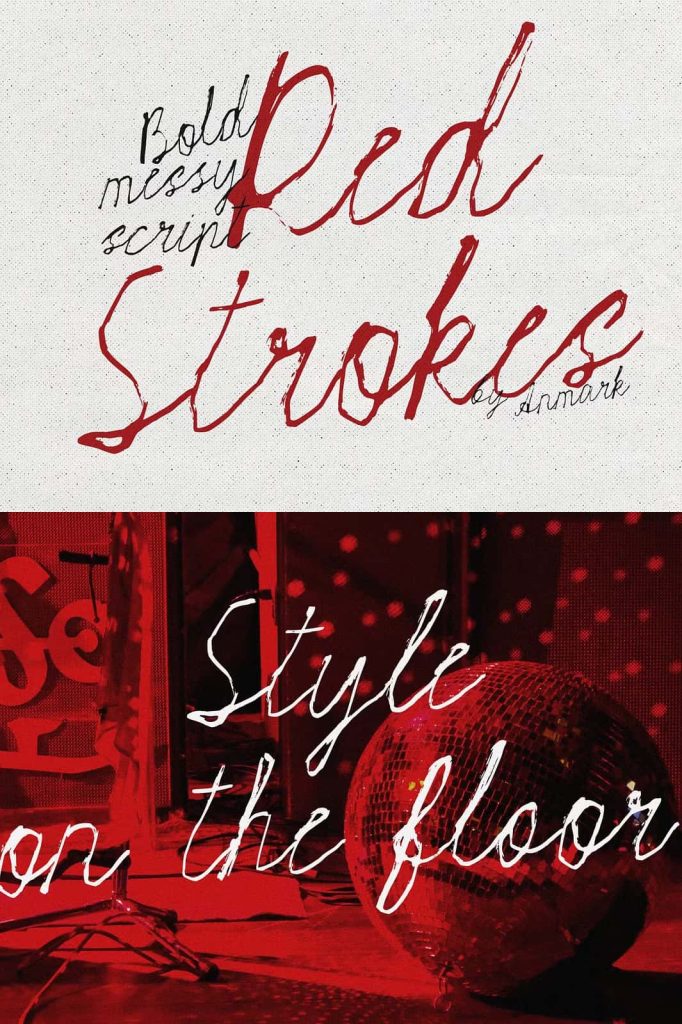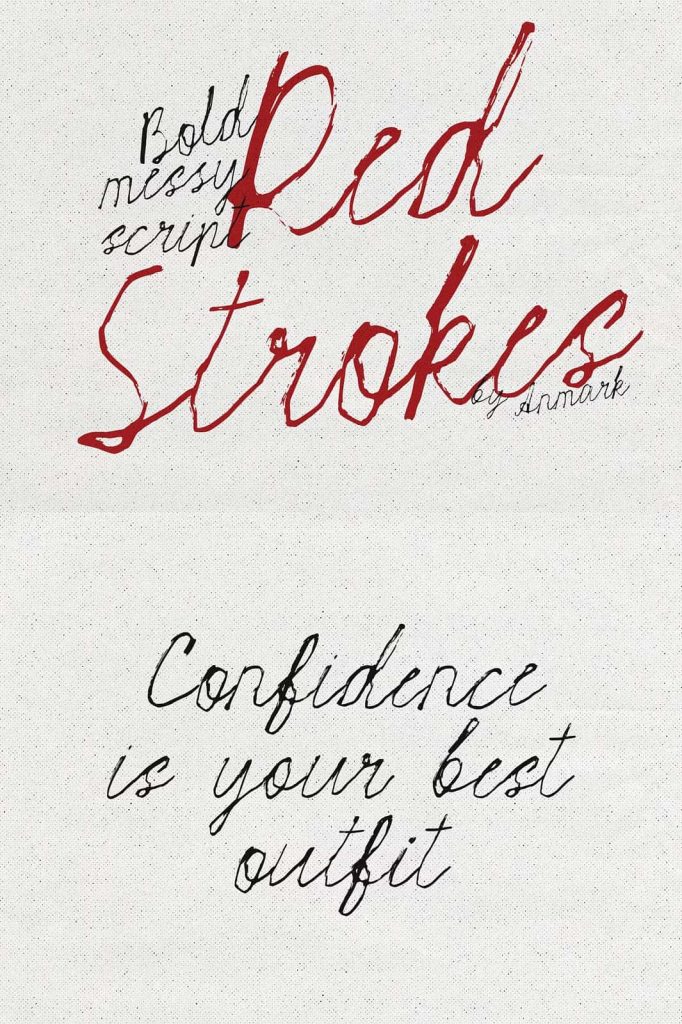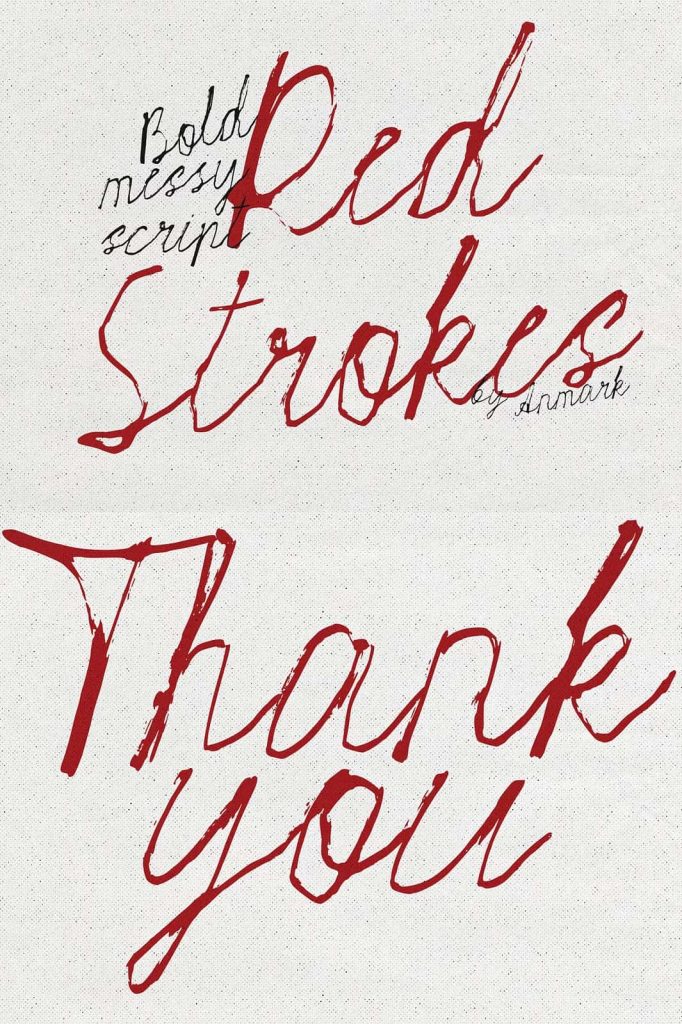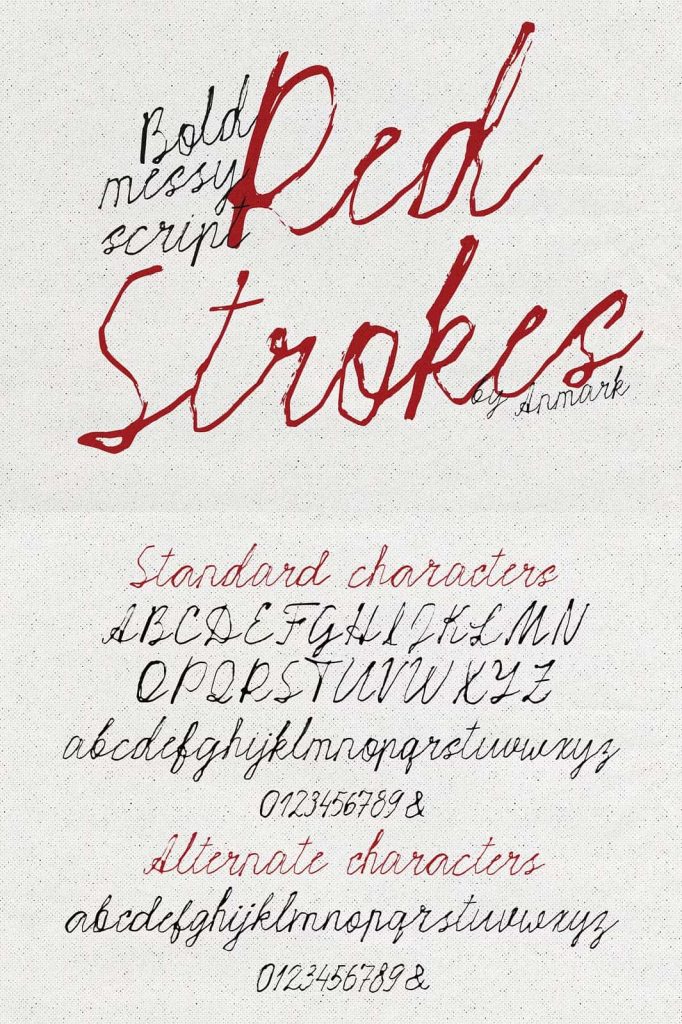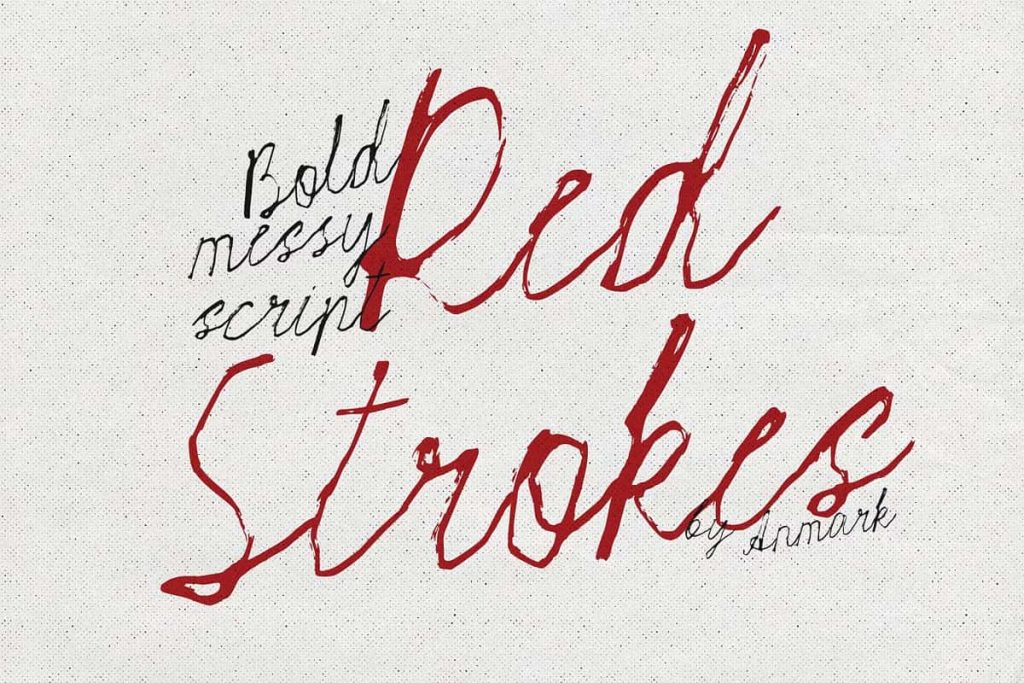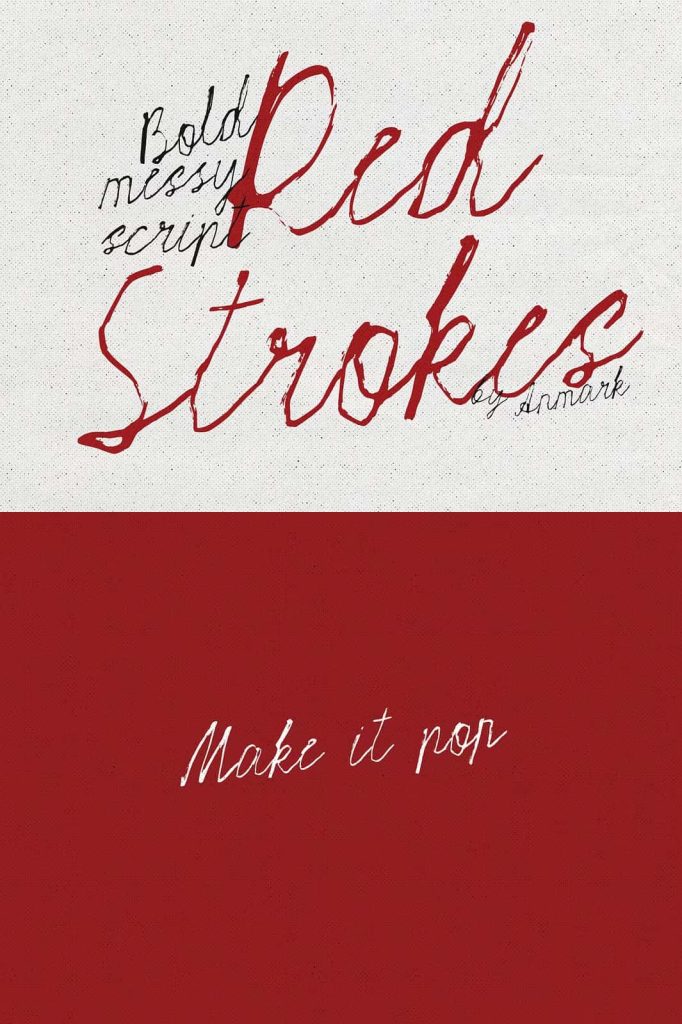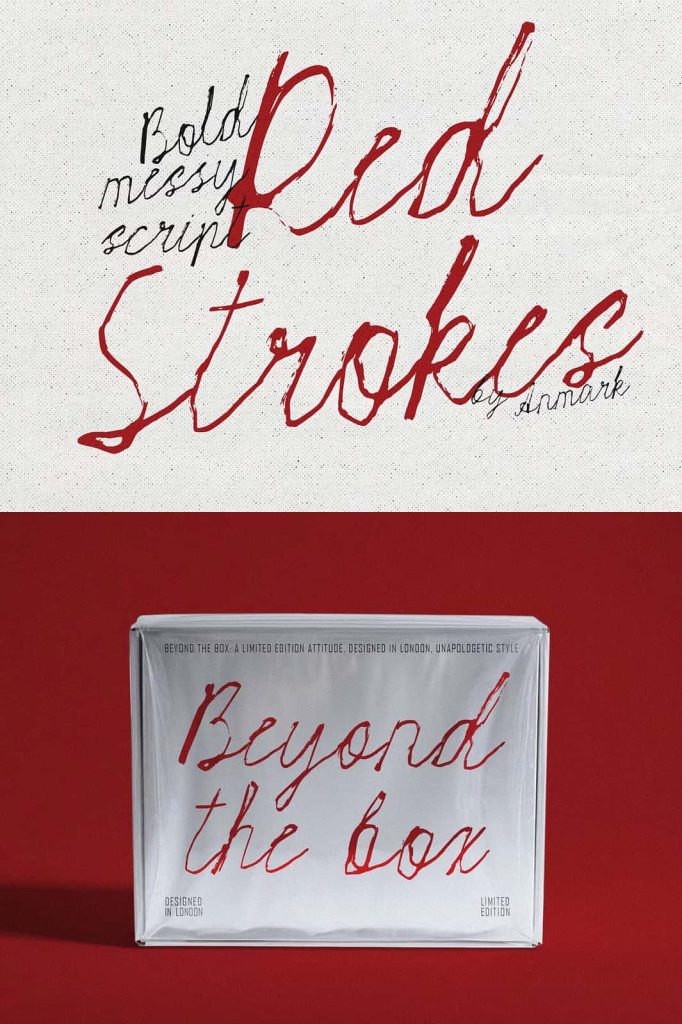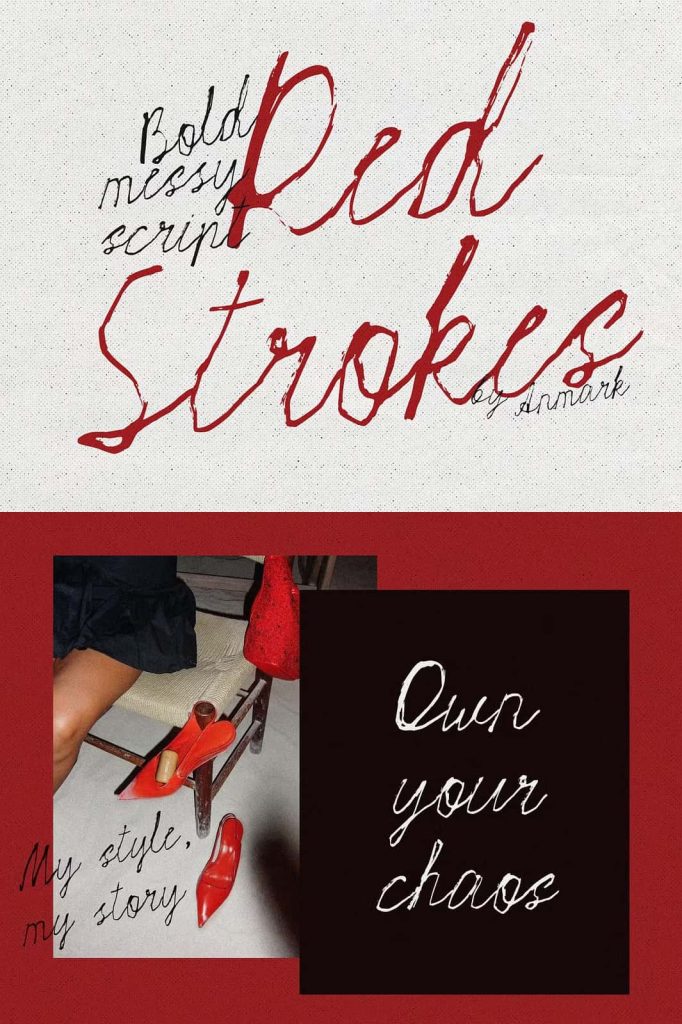
Red Strokes Script Font – Bold Textured Handwritten Typeface for Creative Designs
Red Strokes is a bold, textured script font that captures the beauty of natural handwriting with an expressive and artistic personality. Designed with rough brush-inspired strokes and an intentionally imperfect appearance, this typeface delivers a handcrafted aesthetic that immediately grabs attention. Every letter feels energetic, emotional, and full of movement, allowing your typography to communicate far more than simple words.
Unlike clean script fonts that focus on perfection, Red Strokes embraces authenticity. The textured edges, dynamic curves, and spontaneous flow create a realistic handwritten effect that gives every project a personal and distinctive identity. This combination of bold strokes and natural imperfections makes the font especially suitable for designers who want to create memorable visuals with confidence and originality.
Whether you are designing a fashion campaign, premium branding package, magazine layout, social media content, or product packaging, Red Strokes provides the creative flexibility needed to make every design stand out. Its expressive style balances artistic freedom with excellent readability, ensuring your message remains clear while delivering maximum visual impact.
Expressive Handwritten Style with Artistic Character
Red Strokes celebrates the beauty of handcrafted lettering through expressive brush-like strokes and rich textures. Every character appears naturally written by hand, creating an authentic look that feels fresh, emotional, and full of personality. Instead of relying on perfectly smooth lines, this font introduces subtle irregularities that enhance its realism and charm.
The textured appearance creates depth and dimension, making headlines, logos, and featured text appear more dynamic. The flowing letterforms connect naturally, producing elegant movement across words while maintaining consistent readability. This combination allows designers to build eye-catching compositions that feel energetic without sacrificing clarity.
The font carries a modern handwritten aesthetic with a strong feminine influence while remaining versatile enough for many different creative directions. Its artistic character makes it an excellent choice for projects that demand originality, emotion, and visual storytelling.
Designed for Fashion, Branding, and Editorial Projects
Modern creative industries often require typography that communicates identity as effectively as imagery. Red Strokes delivers exactly that by offering a script style that feels fashionable, expressive, and contemporary. The bold handwritten appearance naturally complements luxury branding, beauty products, fashion collections, creative agencies, and lifestyle businesses.
Editorial designers can use Red Strokes to create impactful magazine headlines, promotional banners, feature articles, and stylish cover designs. The natural brush texture adds sophistication while introducing a handcrafted element that feels both premium and approachable.
For branding projects, Red Strokes helps businesses establish a memorable visual voice. Whether used on logos, product labels, business cards, packaging, or marketing materials, the font adds authenticity and creative confidence that strengthens brand recognition.
Perfect for a Wide Variety of Creative Applications
Red Strokes offers outstanding versatility across both print and digital media. Its expressive script style adapts beautifully to numerous design purposes, allowing creators to maintain a consistent visual identity across multiple platforms.
Ideal Uses Include:
- Fashion branding and clothing labels
- Beauty and cosmetic packaging
- Luxury product branding
- Magazine and editorial headlines
- Instagram posts and stories
- YouTube thumbnails
- Website hero banners
- Creative advertising campaigns
- Product packaging
- Logo design
- Personal branding
- Photography watermarks
- Greeting cards
- Wedding stationery
- Invitations
- Quote graphics
- Art prints
- Posters
- Merchandise designs
No matter the medium, Red Strokes provides a bold handwritten appearance that helps every design feel more engaging and memorable.
Natural Texture That Adds Authenticity
One of Red Strokes’ defining features is its rich textured finish. Rather than producing perfectly polished lettering, the font recreates the natural inconsistencies found in real handwriting and brush lettering. These details give each character warmth, personality, and artistic depth.
The textured strokes introduce subtle visual variation that prevents text from appearing flat or mechanical. This handcrafted quality makes the font especially effective for creative brands seeking a more human, approachable identity. Instead of feeling digitally generated, every word appears naturally written by an experienced artist.
This authentic handwritten texture also works exceptionally well in large display sizes where every brush detail becomes visible, creating dramatic typography that immediately captures attention.
Strong Visual Impact Without Losing Readability
Although Red Strokes embraces expressive movement and textured brush strokes, it maintains excellent readability across a wide range of applications. The carefully balanced letterforms ensure that headlines remain clear while preserving the energetic personality that defines the font.
The bold structure allows designers to use Red Strokes confidently for titles, promotional messaging, featured quotes, and brand names. Even in highly visual layouts, the script remains easy to read, helping audiences absorb information quickly while appreciating the artistic presentation.
This balance between expressive style and functional design makes Red Strokes suitable for both commercial and artistic projects.
Why Choose Red Strokes?
Creative professionals often search for fonts that offer more than attractive letterforms. They want typography capable of communicating emotion, strengthening brand identity, and creating memorable visual experiences. Red Strokes accomplishes all of these goals through its bold handwritten style, authentic texture, and confident artistic personality.
Its spontaneous appearance helps designs feel more organic and emotionally engaging, while the bold script structure ensures your message remains visible and impactful. From fashion campaigns to creative branding, Red Strokes consistently delivers professional results that leave a lasting impression.
If you want a script font that combines expressive brush lettering, textured authenticity, modern elegance, and outstanding versatility, Red Strokes is an excellent addition to your typography collection. It transforms ordinary text into compelling visual storytelling and gives every creative project a distinctive handcrafted character that audiences will remember.